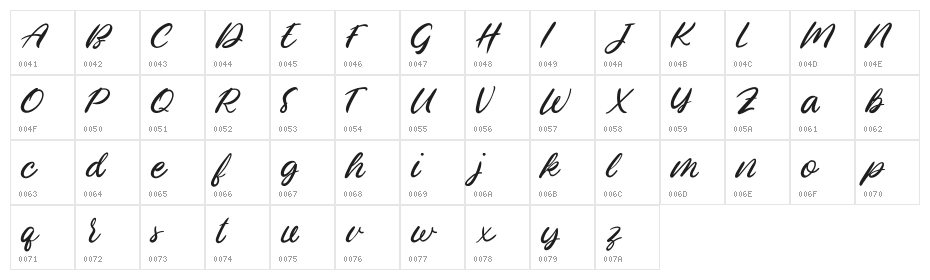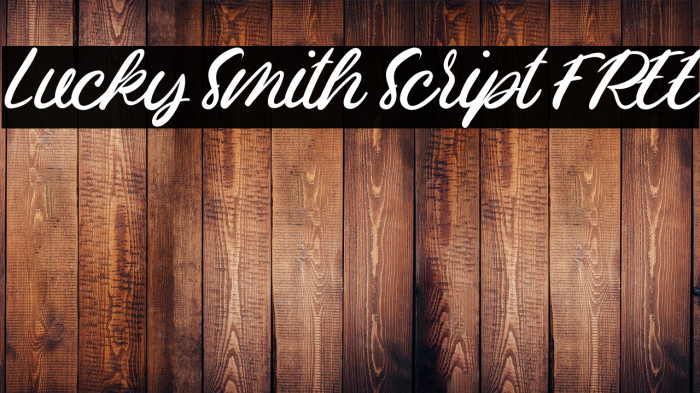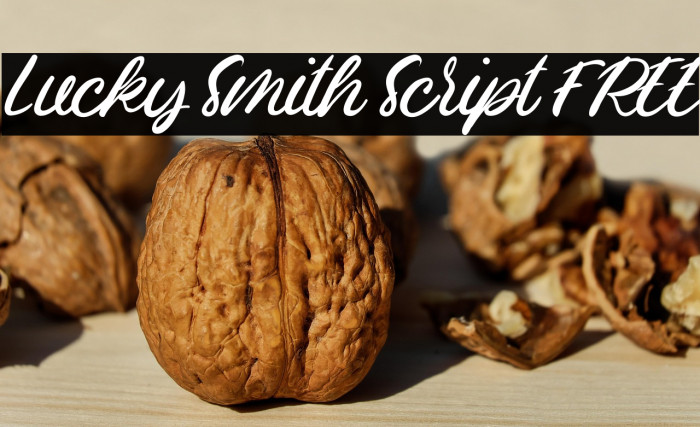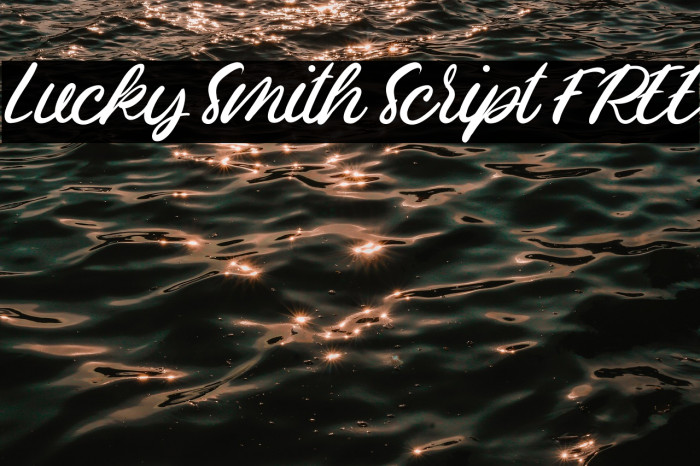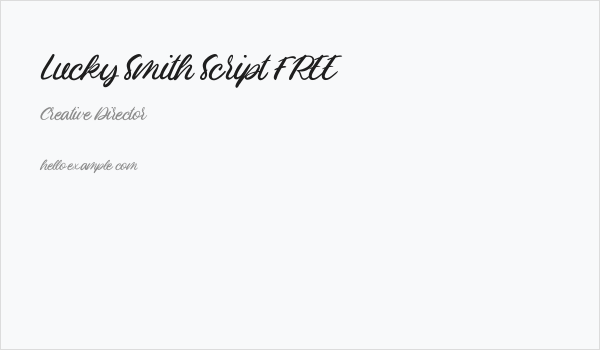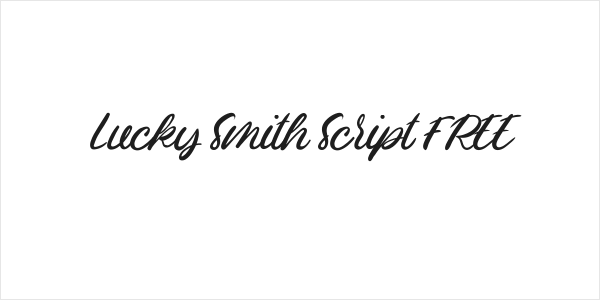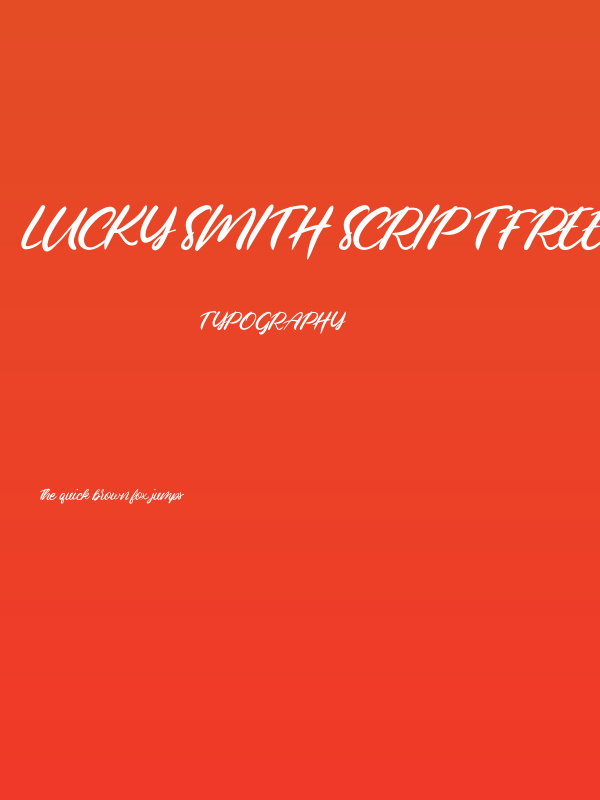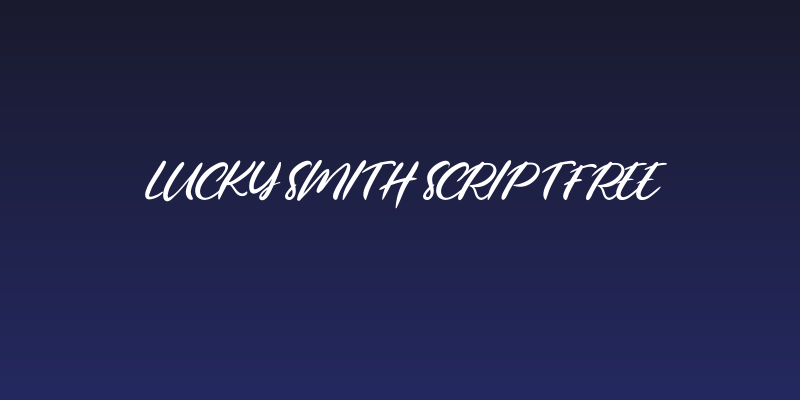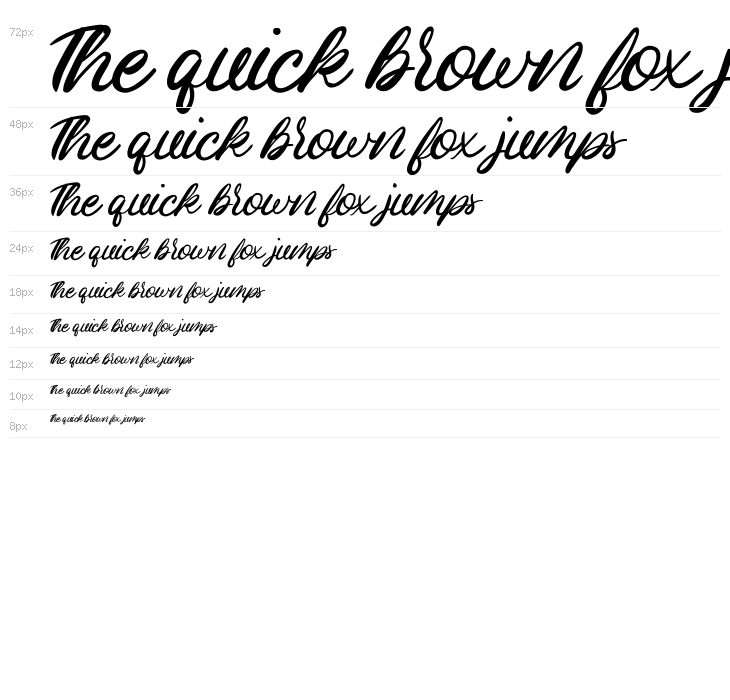
Lucky Smith Script FREE Font
Lucky Smith Script FREE Description
This font exudes a lively and expressive character with its fluid, cursive style. The letters are interconnected, creating a seamless flow that mimics natural handwriting. The strokes are bold and confident, with a slight slant that adds a dynamic feel. The uppercase letters are elegant and slightly elongated, while the lowercase letters maintain a consistent rhythm, enhancing readability. The font's playful yet sophisticated appearance makes it suitable for a variety of creative projects.
| Use Case | Logos, Invitations, Decorative text |
| Proposed Projects | Ideal for wedding invitations, greeting cards, branding, and logo design. |